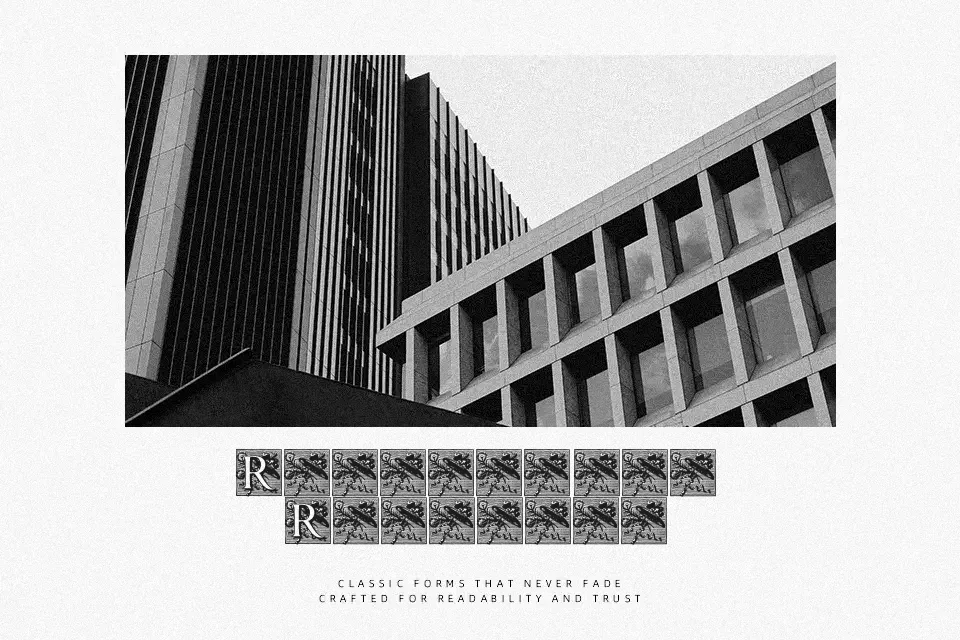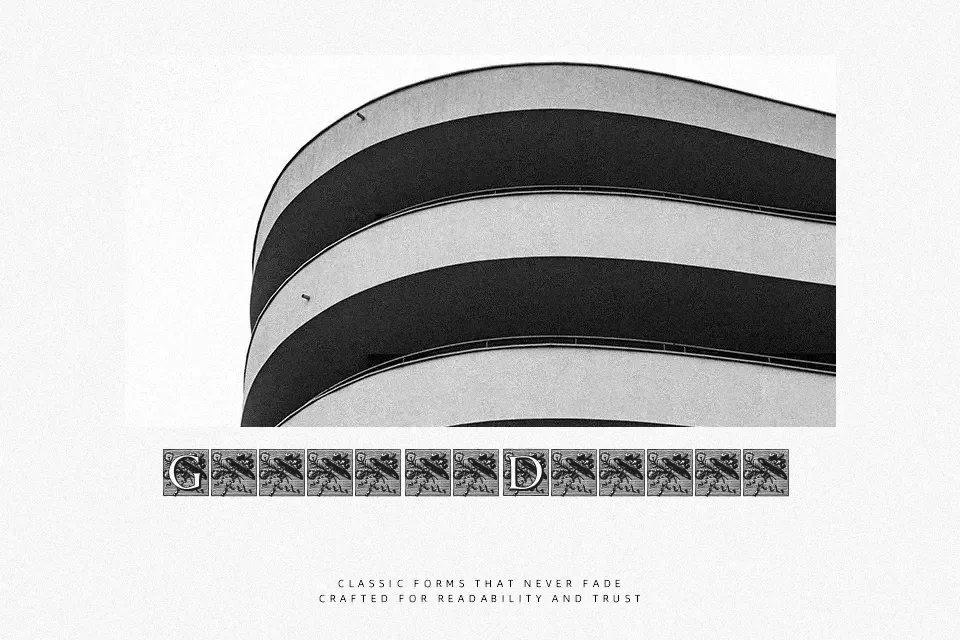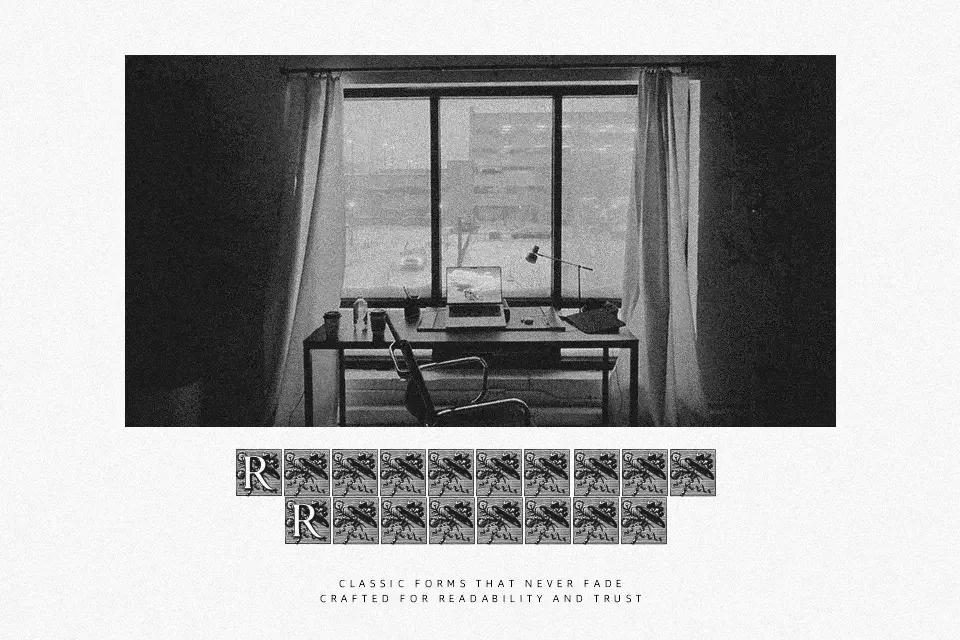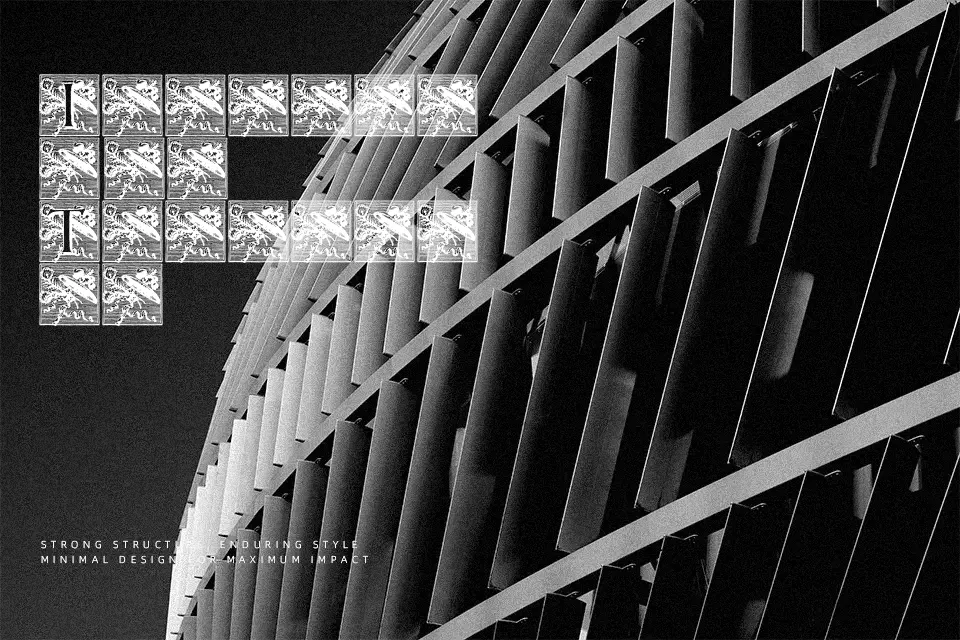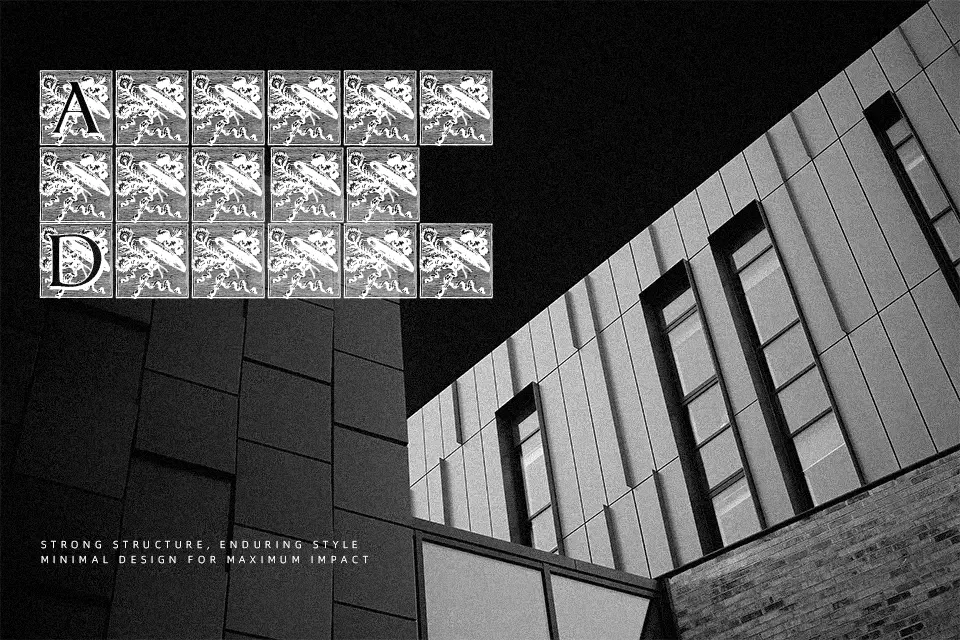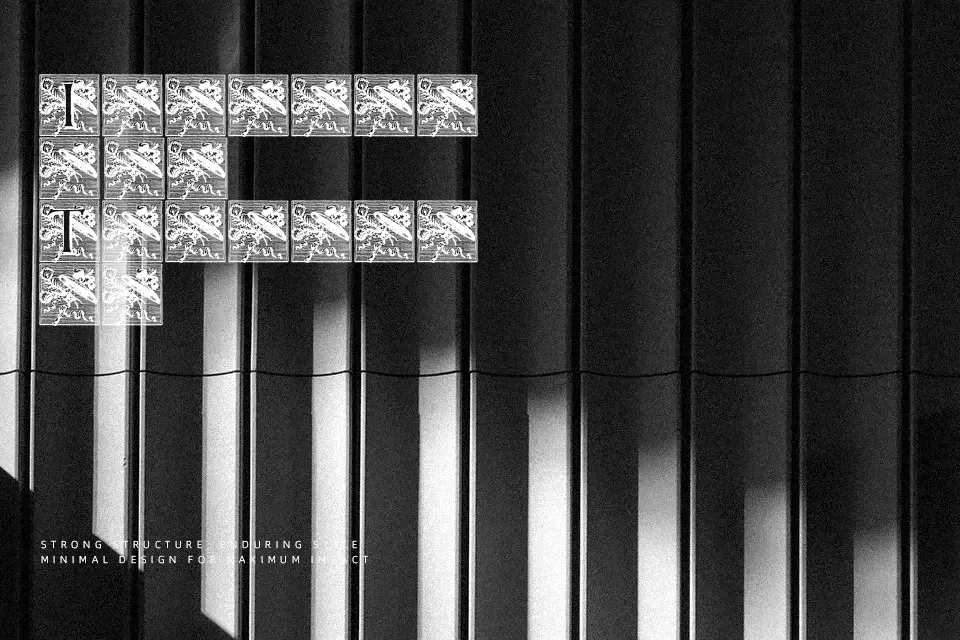
Pompadour Initials Font
Pompadour Initials Font features an exceptionally detailed structure, characterized by heavy stroke contrast and elaborate internal engraving patterns. The uppercase-only letterforms carry a commanding presence, with controlled spacing that frames each character like an individual piece of art. The bold outlines ensure strong visibility in large display formats, while classical proportions lend an elegant, historical rhythm to the overall typography. This intricate styling performs beautifully when used for dramatic poster headlines, upscale event invitations, and boutique branding requiring a vintage aesthetic. However, the sheer density of the decorative elements heavily reduces readability at smaller sizes, making it entirely unsuitable for continuous reading. The intricate details become lost in dense layouts, so it performs best when given ample surrounding space.
vintage product packaging
upscale event invitations
boutique clothing branding
historical poster headlines
continuous paragraph text
spreadsheet data
Perfect for branding, headline, and invitation, with a artistic and decorative style.